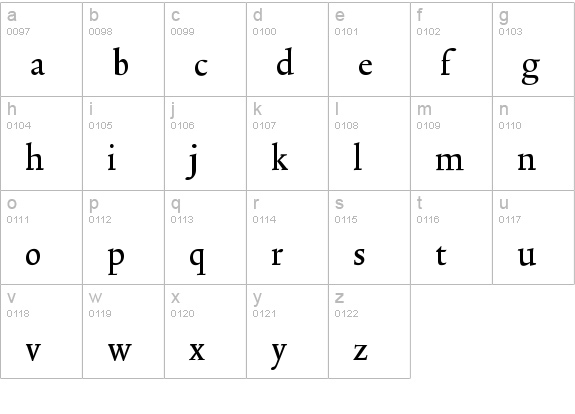
TriniteNo2-MediumCondTab font is a stunning typeface that exudes elegance and sophistication. Crafted with meticulous attention to detail, this font combines sleek lines and balanced proportions to create a truly refined aesthetic. The medium condensed design of TriniteNo2-MediumCondTab makes it versatile and suitable for a wide range of design projects. Whether you're working on a logo, branding materials, or editorial layouts, this font will bring a touch of modernity and professionalism to your work. Featuring a comprehensive character set, TriniteNo2-MediumCondTab allows you to effortlessly express your creativity. Its legible letterforms and clear spacing ensure optimum readability, making it suitable for both print and digital applications. One of the best things about TriniteNo2-MediumCondTab font is that it is available for free. Yes, you read that right - free! You can download this stunning typeface without any cost at FontsMarket.com. This means that you can enhance your design projects with a high-quality font without breaking the bank. Don't miss out on this opportunity to elevate your designs with TriniteNo2-MediumCondTab font. Download it for free at FontsMarket.com and experience the perfect blend of style and functionality.